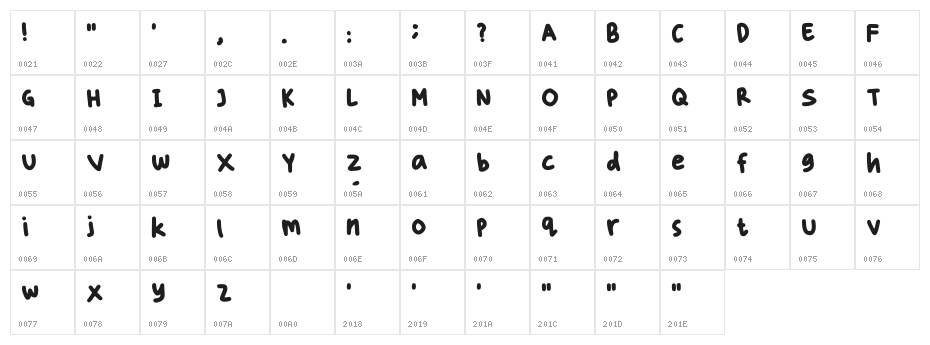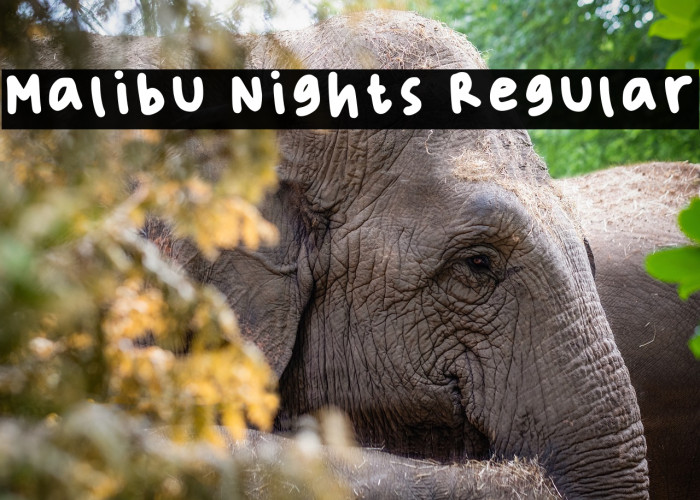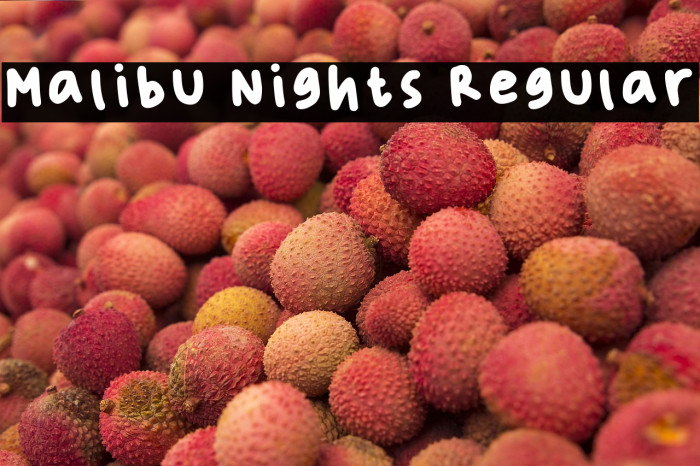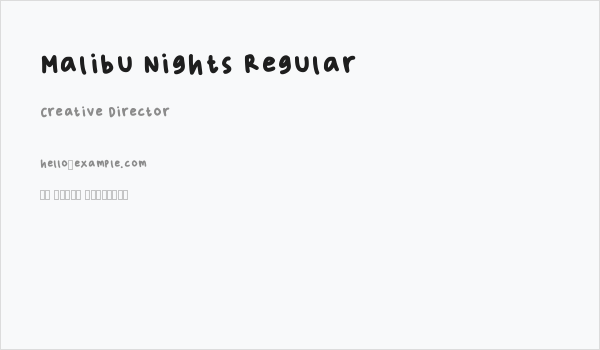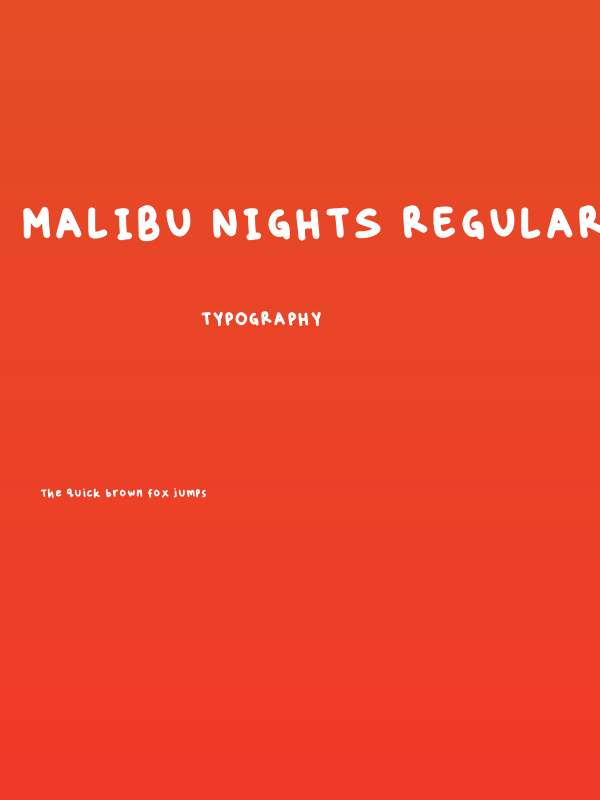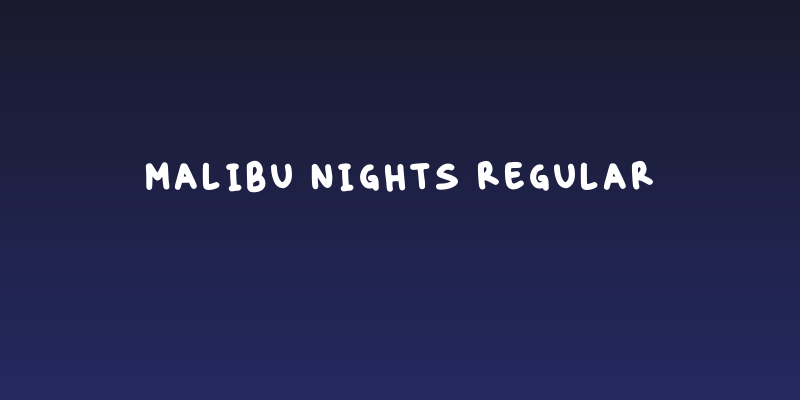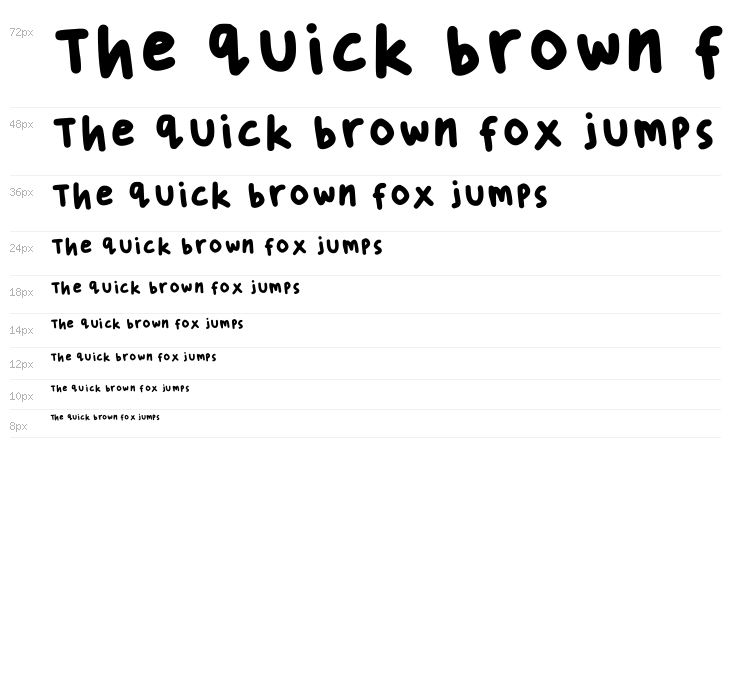
Malibu Nights Regular Font
Malibu Nights Regular Description
A playful, handwritten font with rounded edges and a casual style.
| Use Case | Headlines, Informal text, Branding |
| Proposed Projects | Greeting cards, children's books, informal branding. |